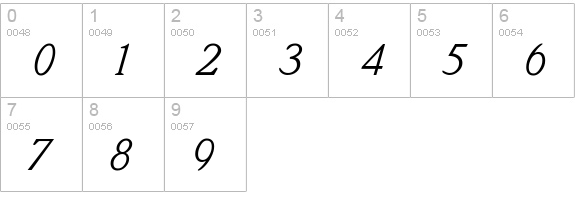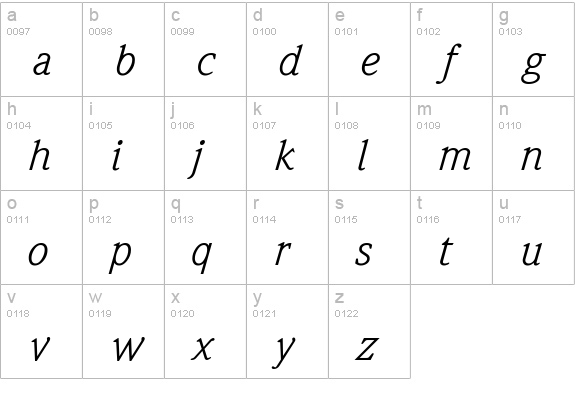
Weidemann Italic Font Details
Weidemann Italic is a distinctive, italic variant in the Weidemann typeface family \xE2\x80\x94 well suited to design and typography projects.
Weidemann Italic font is a stunningly elegant typeface that effortlessly balances the line between traditional and contemporary design. With its graceful curves and delicate serifs, this font exudes a sense of sophistication and refinement. Crafted with meticulous attention to detail, Weidemann Italic carries a timeless charm that is perfect for a wide range of applications. Whether used in wedding invitations, luxury brand logos, or editorial layouts, this font adds an air of elegance that instantly captivates the viewer. The flowing strokes of Weidemann Italic create a harmonious rhythm that is both pleasing to the eye and easy to read. Its slightly slanted form adds a touch of dynamic energy, making it a versatile choice for both formal and informal settings. One of the most remarkable features of Weidemann Italic font is that it is freely available to download at FontsMarket.com. This means that designers, creatives, and typographers can access this exquisite typeface without any cost, making it an incredible resource for those in need of a high-quality font that doesn't compromise on style. Whether you're a professional designer or a typography enthusiast, Weidemann Italic font is a must-have addition to your collection. Its timeless beauty, combined with its availability as a free download, makes it a truly remarkable font that will elevate any project to new heights.